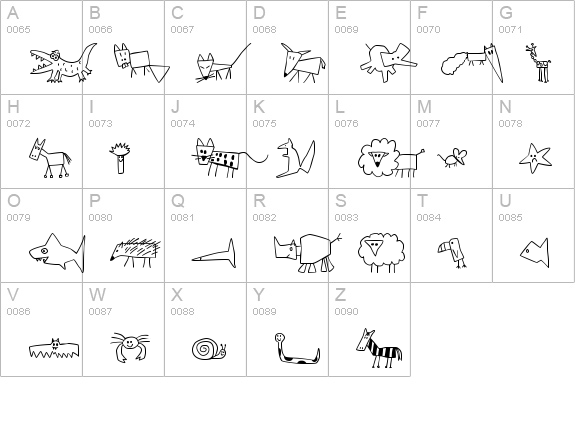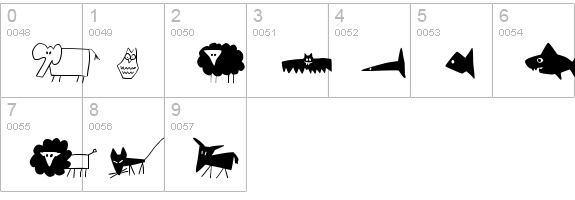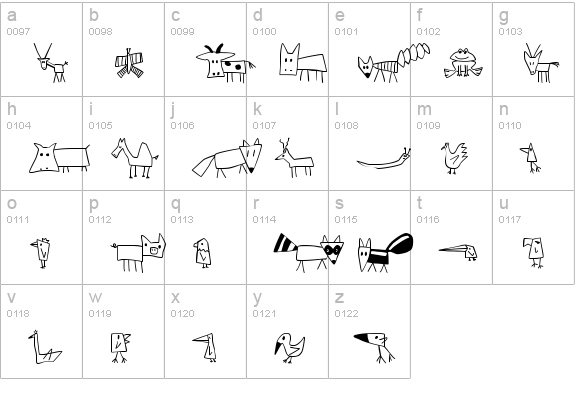
ChildsPlayAnimals Font Details
ChildsPlayAnimals font is a delightful and whimsical typeface perfect for adding a playful touch to your projects. This font features charming animal illustrations that bring a sense of fun and creativity to any design. Each letter is uniquely designed with cute animal characters, making it perfect for children's books, posters, invitations, and more. What sets ChildsPlayAnimals font apart is that it is available for free download at FontsMarket.com. This means you can easily access this adorable font and use it in your projects without any cost. With its unique and eye-catching design, ChildsPlayAnimals font is sure to capture the attention of your audience and bring a touch of joy to your designs. Download this font today and let your creativity run wild with the playful charm of ChildsPlayAnimals.